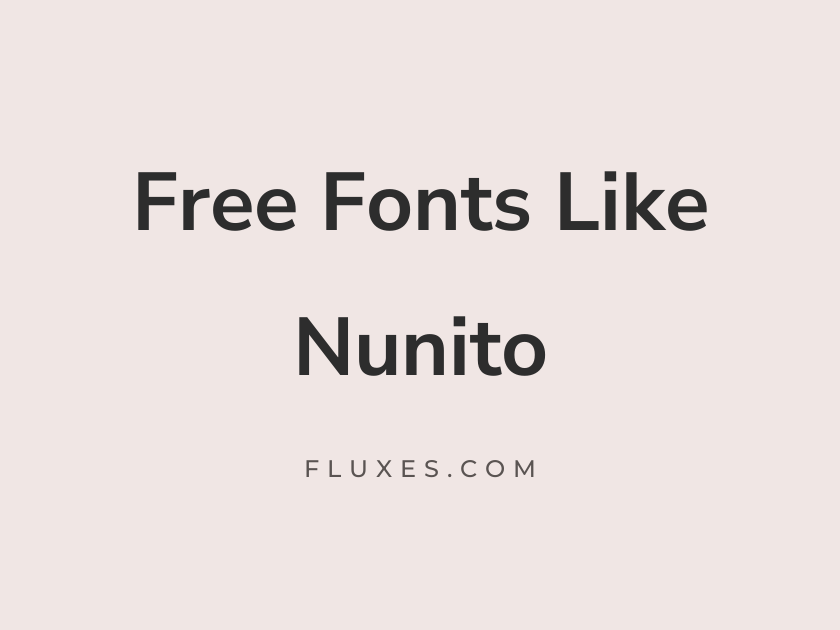
14 Best Free Fonts Similar to Nunito
Nunito earned its popularity for a reason: it pairs rounded, approachable terminals with a genuinely legible, well-balanced structure that works everywhere from app interfaces to editorial headlines. That combination, warmth without cartoonishness, is harder to find than it sounds, which is why so many designers go looking for free fonts similar to Nunito when a project calls for something friendly but still professional. The alternatives below share Nunito’s soft geometry, generous x-height, or humanist warmth, and every one of them is free to download on Google Fonts.
Friendly, readable text for every interface
The sans-serif sibling to the original rounded Nunito, this version trades soft curves for a more neutral, upright structure while keeping the same generous spacing and calm rhythm. It reads a touch more corporate, which makes it a smart pick when you love Nunito’s proportions but need something that feels slightly more buttoned-up for body copy or dashboards.
Simple shapes, friendly curves, modern feel
Quicksand is built almost entirely from geometric circles and clean stroke widths, giving it a light, airy quality that feels distinctly digital-native. It shines in headlines, app branding, and anywhere you want a youthful, minimal tone, though its geometric simplicity can feel a little thin at very small sizes.
Soft rounded letters for gentle branding
Comfortaa leans further into geometric rounding than Nunito, with perfectly circular counters and a display-friendly personality. It works best as a logotype or headline face rather than a body font; at paragraph sizes the wide spacing and rounded joins start to feel loose.
Bold, bouncy type for playful headlines
Chunky, confident, and unmistakably cheerful, Baloo 2 pushes the rounded-sans idea toward something bolder and more toy-like than Nunito ever gets. It suits kids’ brands, food packaging, and casual app icons where you want type that practically smiles at the reader.
Warm rounded type for welcoming interfaces
Varela Round softens every terminal into a smooth curve while keeping letterforms fairly narrow and efficient, so it reads as friendly without taking up much space. It’s a dependable choice for buttons, labels, and UI copy where Nunito’s warmth is welcome but screen real estate is tight.
Clean geometry with slightly rounded corners
Rubik started life as a Hebrew and Latin display face and still carries that confident, slightly blocky geometry, softened just enough at the corners to feel approachable. It handles both display and body text gracefully, and its wide range of weights makes it one of the more versatile Nunito alternatives for full brand systems.
Friendly grotesque type with subtle quirks
Karla has a slightly unusual, humanist character, gentle ink traps and a low-key personality that reads as warm rather than neutral. It’s an excellent body-text companion when you want something quieter than Nunito but still inviting, and it pairs nicely with a bolder rounded display face for headlines.
Clean, minimal sans for everyday reading
Mulish keeps its structure close to classic grotesques but softens the details just enough to feel contemporary and easy on the eyes. It’s a dependable, understated workhorse for long-form web content, and its restraint makes it a safe substitute when Nunito feels a bit too soft for the brand.
Geometric warmth for modern digital design
Poppins built its reputation on nearly perfect circles and consistent stroke widths, giving it a friendly, modern geometry that overlaps closely with Nunito’s appeal. It has become a go-to for startups and app interfaces, though at small body sizes its rounded bowls can blur together, so reserve it for headings or short UI text where clarity matters most.
Poppins also pairs well with more neutral text faces like Karla or Mulish, letting its geometric personality lead in headlines while a quieter font handles the reading.
Bouncy, rounded letters full of character
Fredoka takes the rounded-sans concept and turns the friendliness up several notches, with thick, cheerful strokes that feel almost hand-molded. It’s a natural fit for children’s products, playful apps, and any brand that wants to feel approachable and fun rather than sleek.
Modern grotesque with a warm touch
Manrope sits closer to a contemporary grotesque than a rounded font, but its generous curves and open apertures give it a similar sense of ease and legibility. Designers reach for it when they want Nunito’s readability in a slightly more neutral, tech-forward package.
Geometric elegance inspired by classic sans
Jost draws from the same geometric sans tradition as older display faces, with perfectly round o’s and a confident, retro-modern feel. It’s a good option when a project needs more visual personality in headlines than Nunito offers, without sacrificing clean, geometric structure.
If you want a near-seamless swap for Nunito itself, Nunito Sans or Quicksand will feel the most familiar in both tone and proportion.
Always test your chosen pairing at the actual sizes you’ll use in production; rounded fonts in particular can lose definition on small UI text.
Any of these free Google Fonts can stand in for Nunito depending on how much warmth, geometry, or neutrality your project needs. Downloading a few and testing them directly in your layout is the fastest way to find the one that fits your brand’s voice.